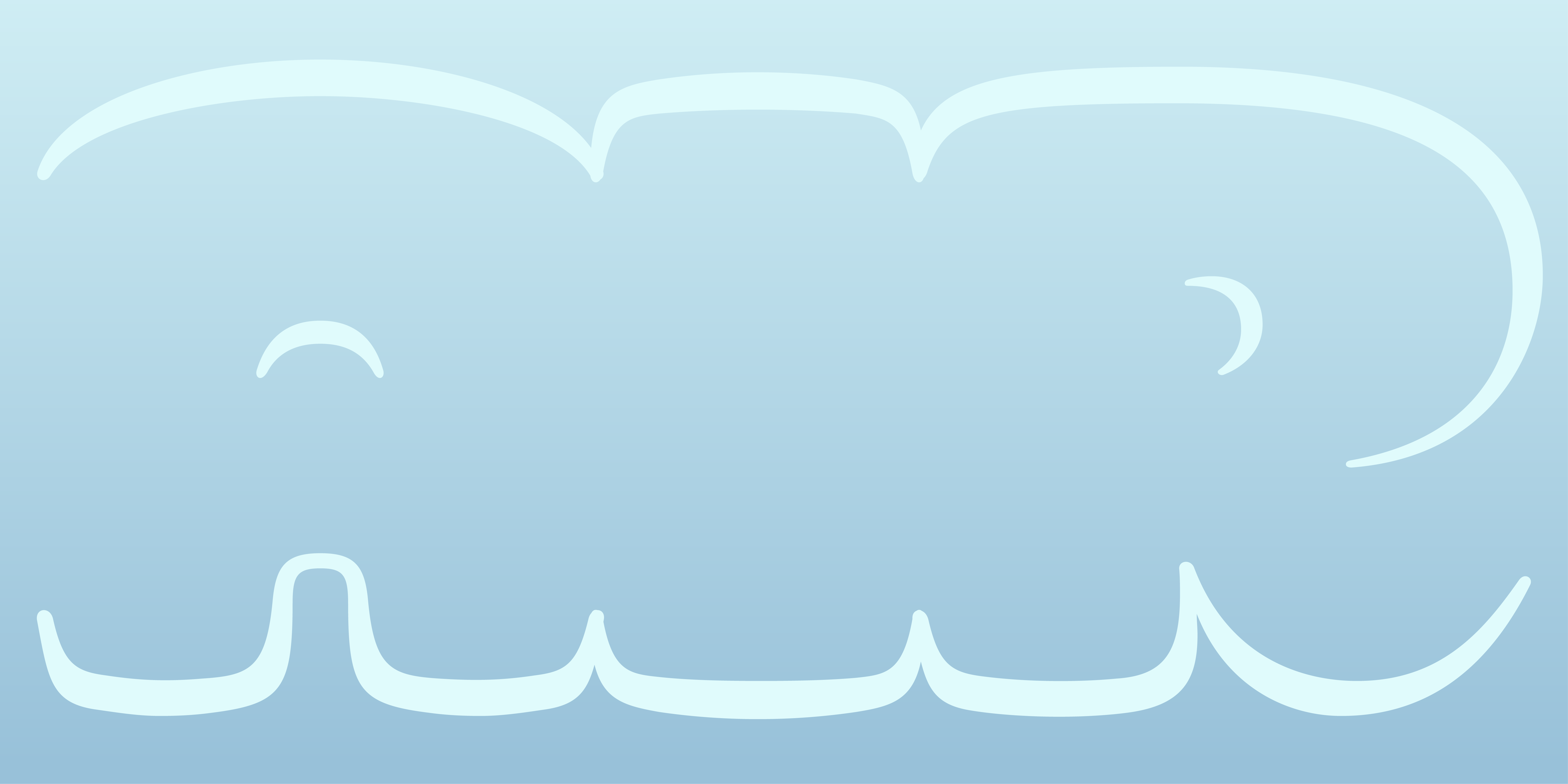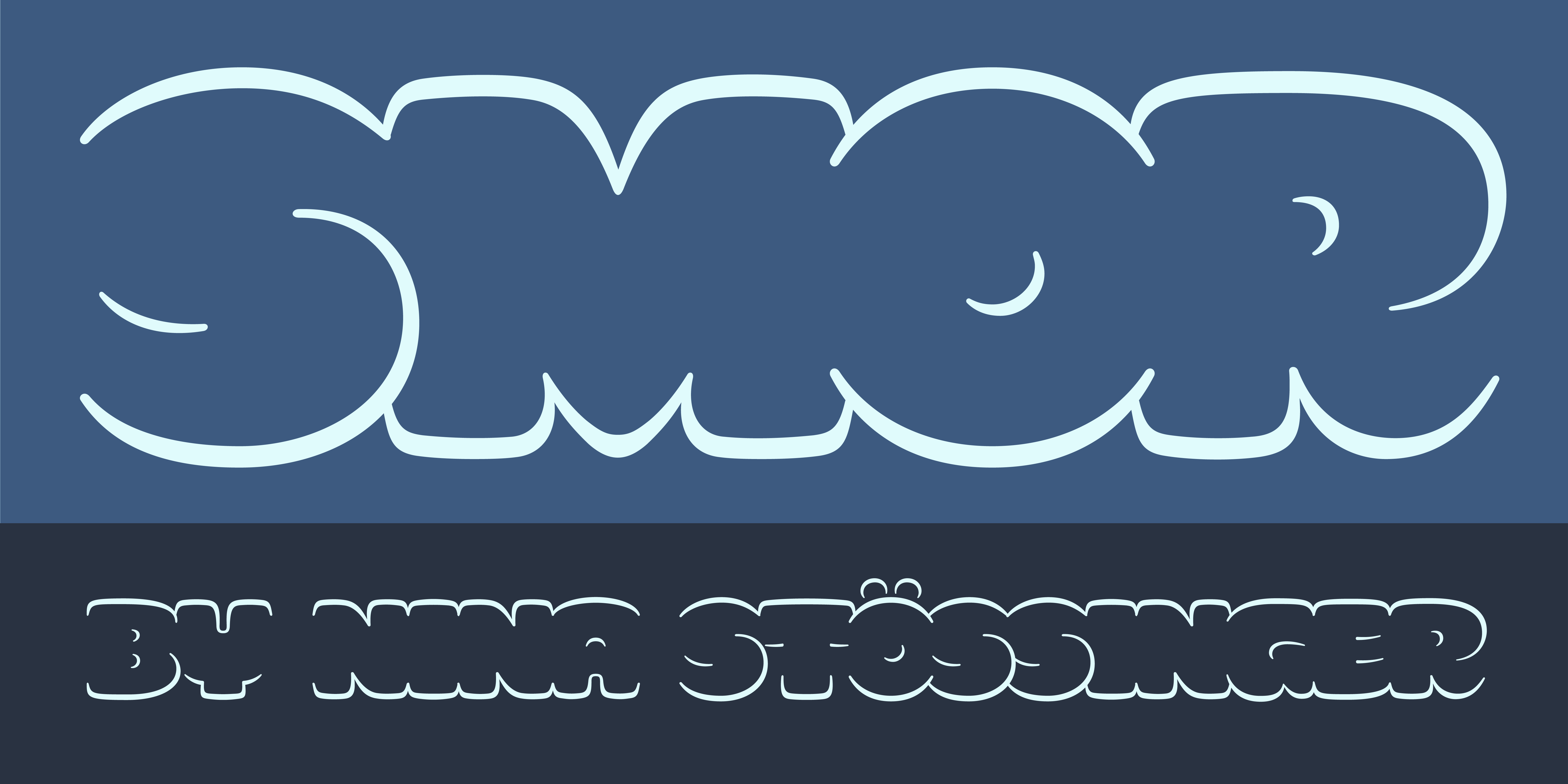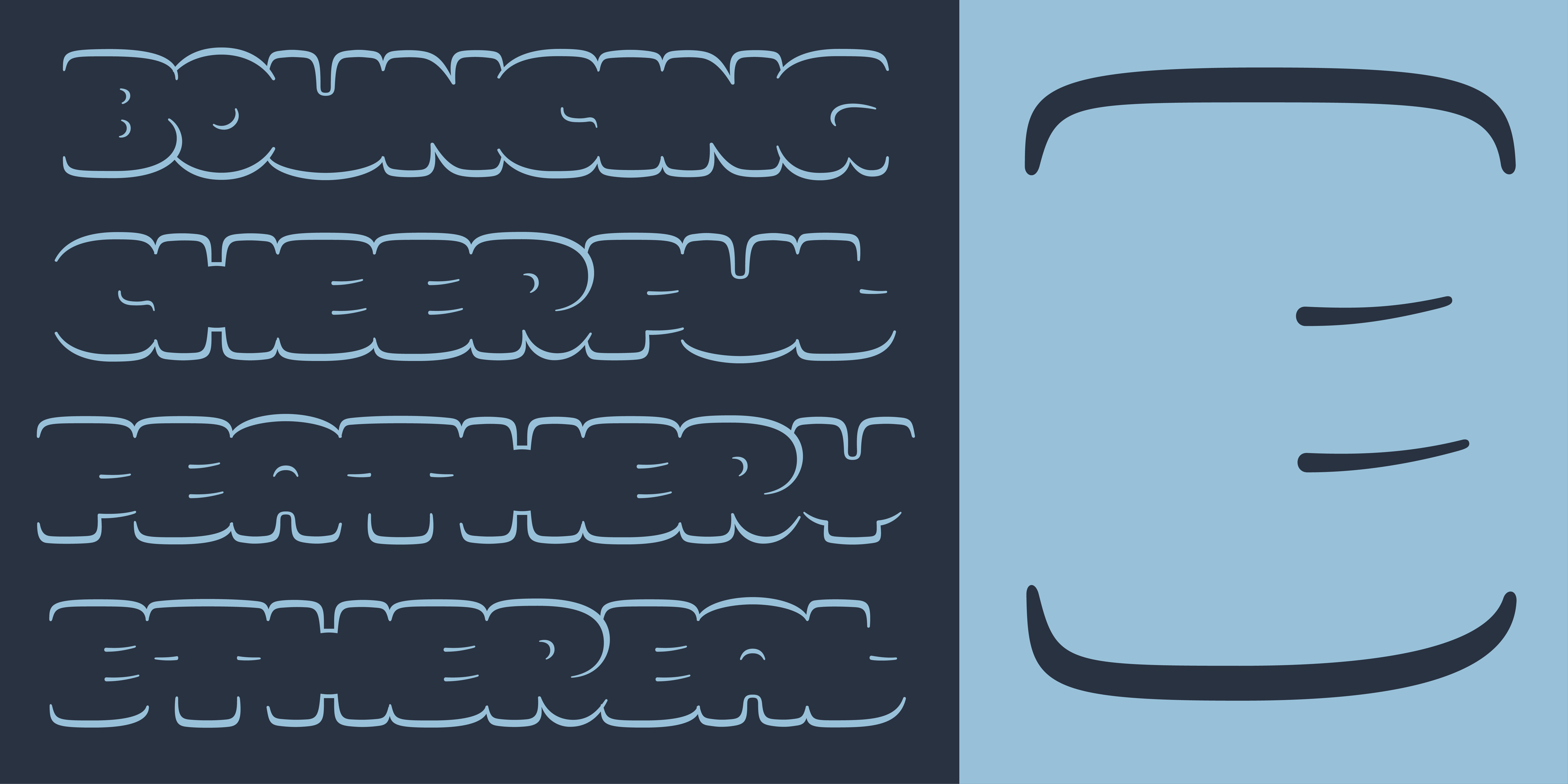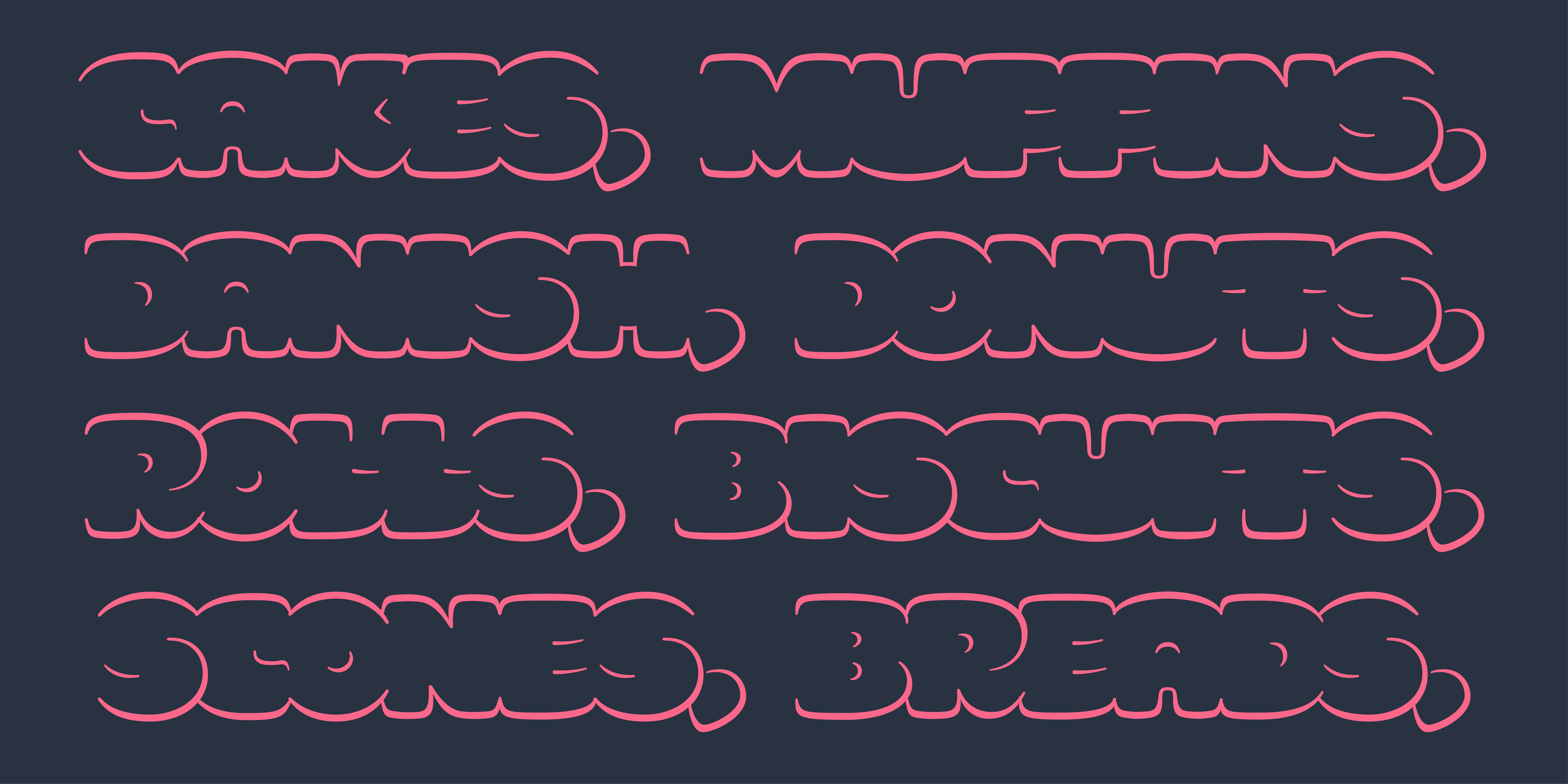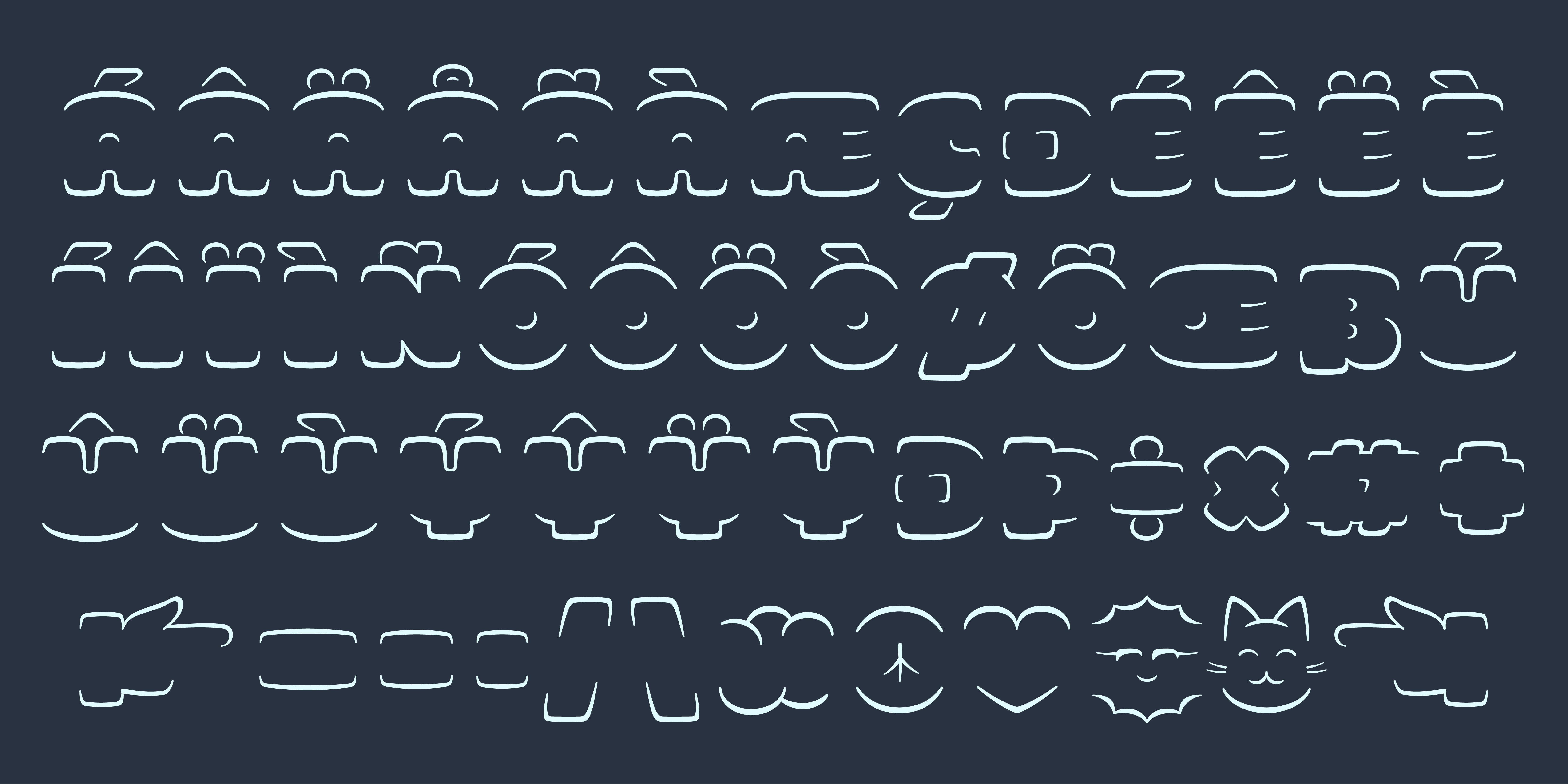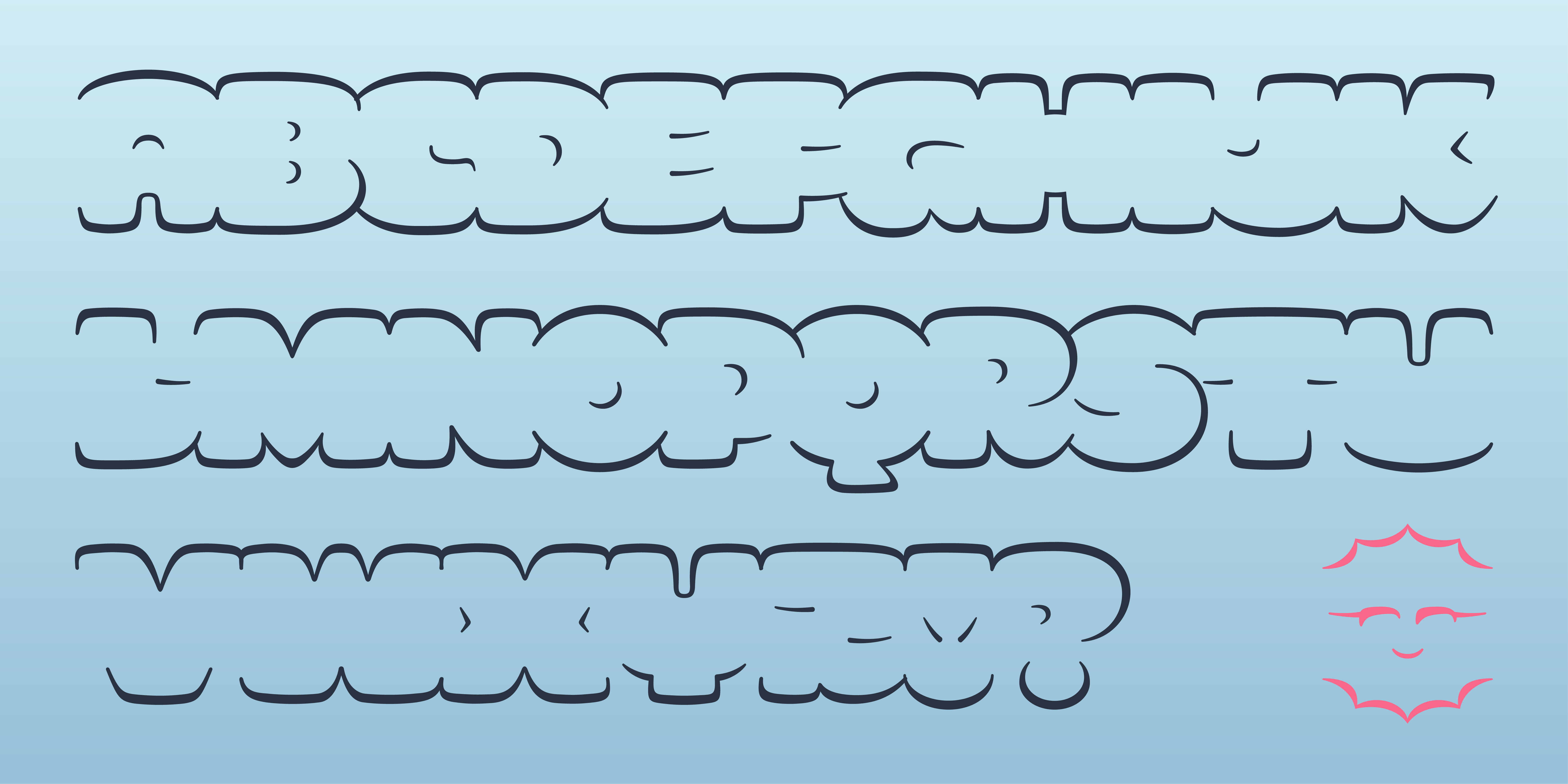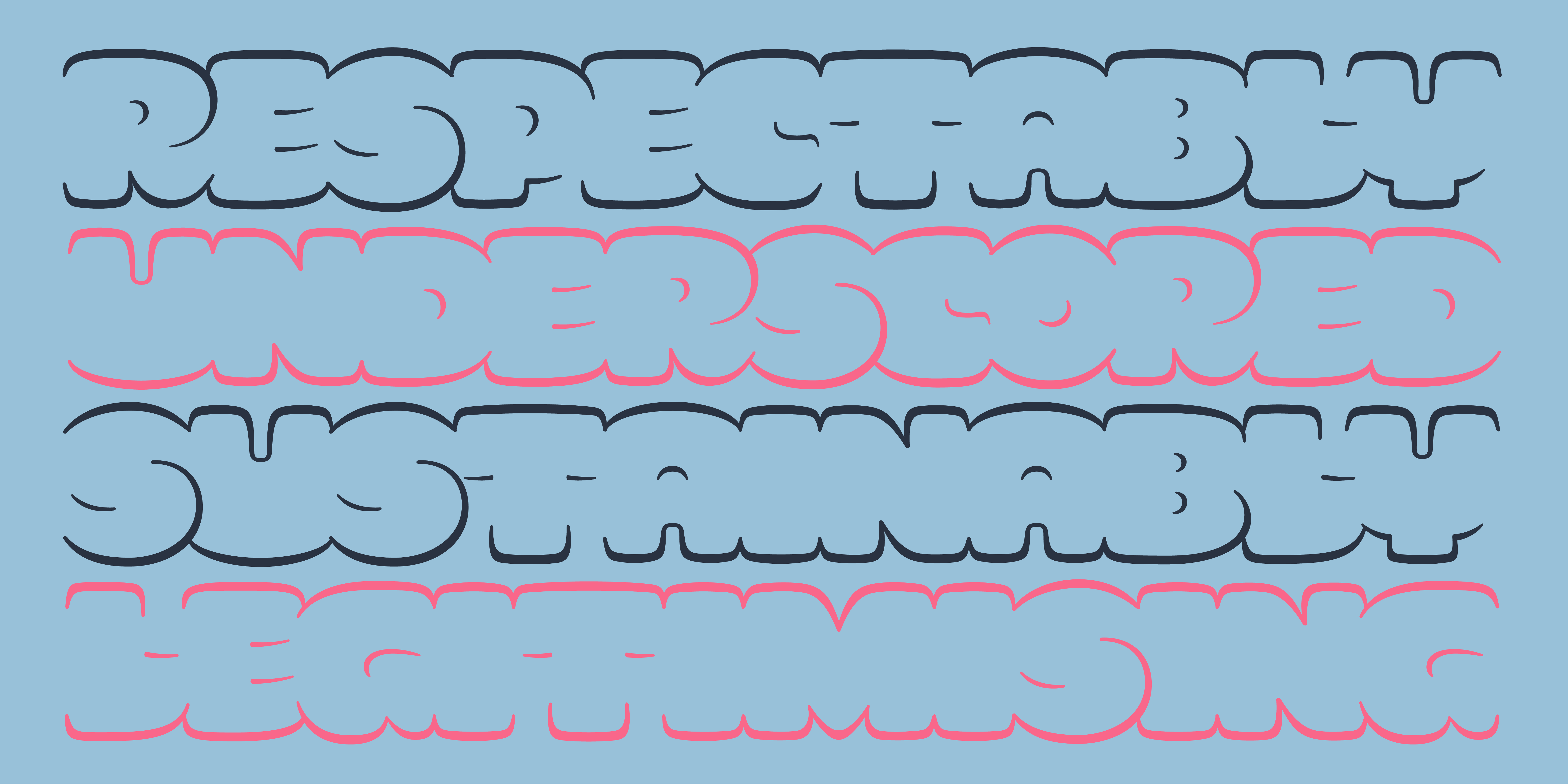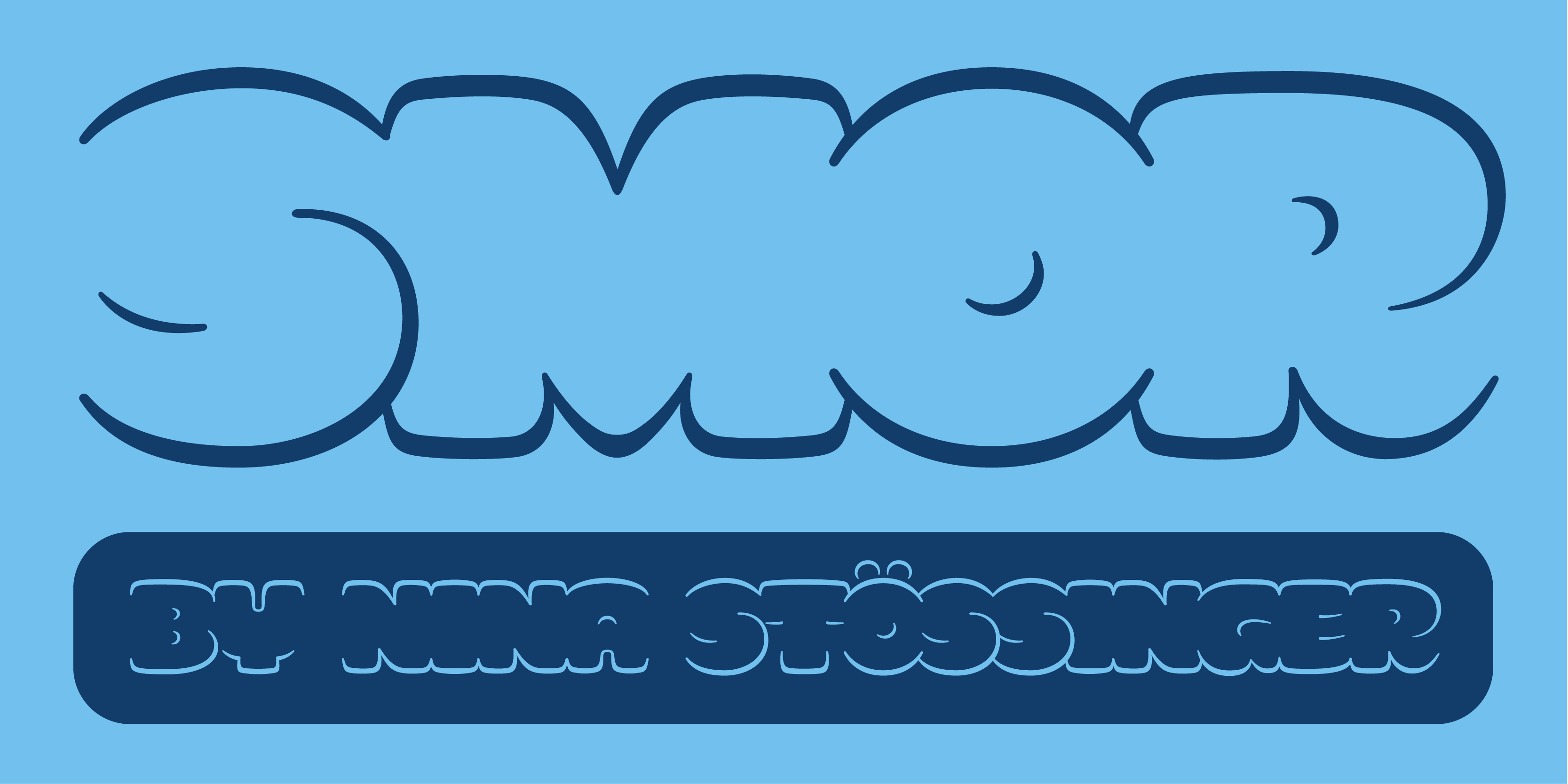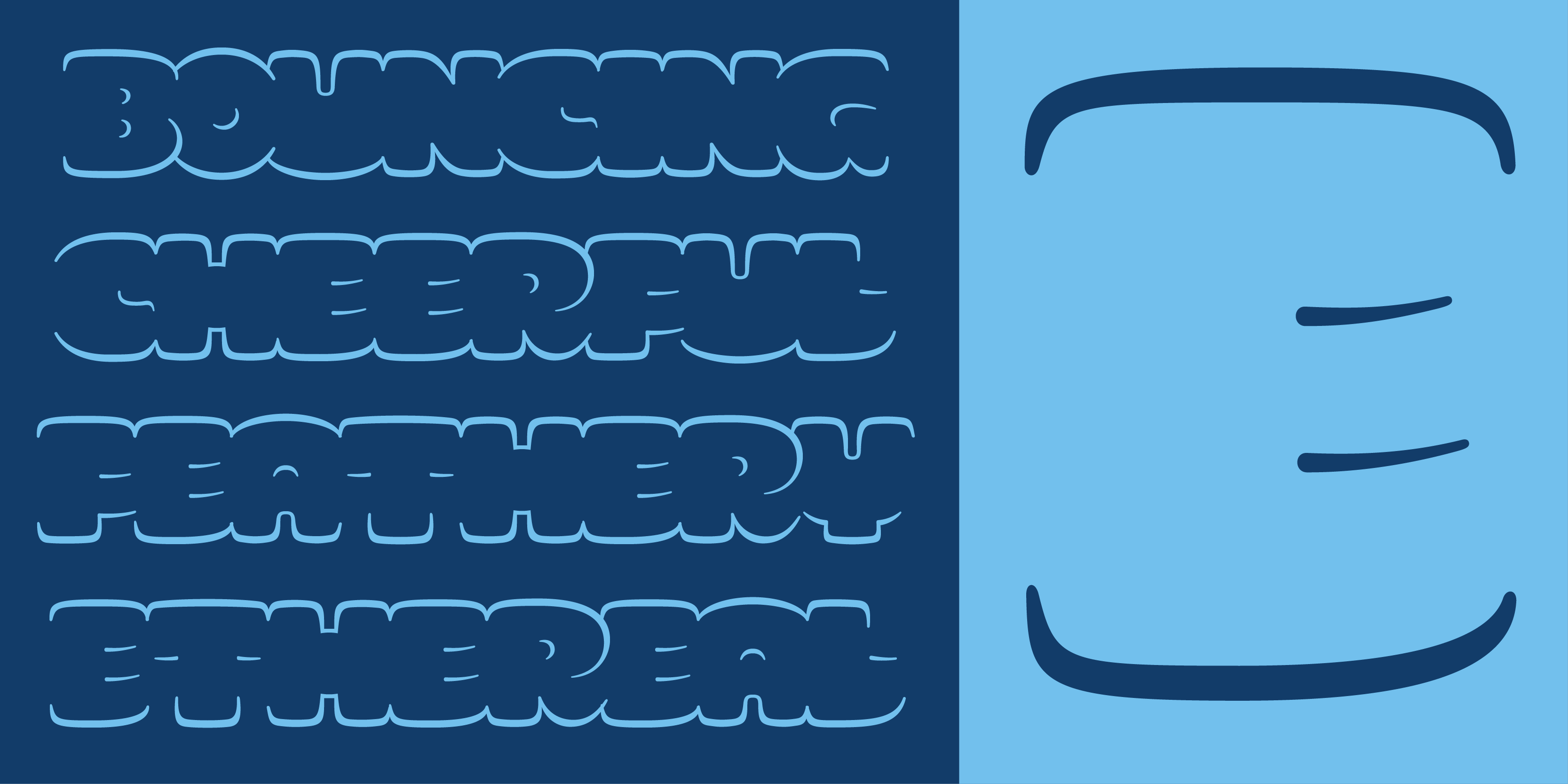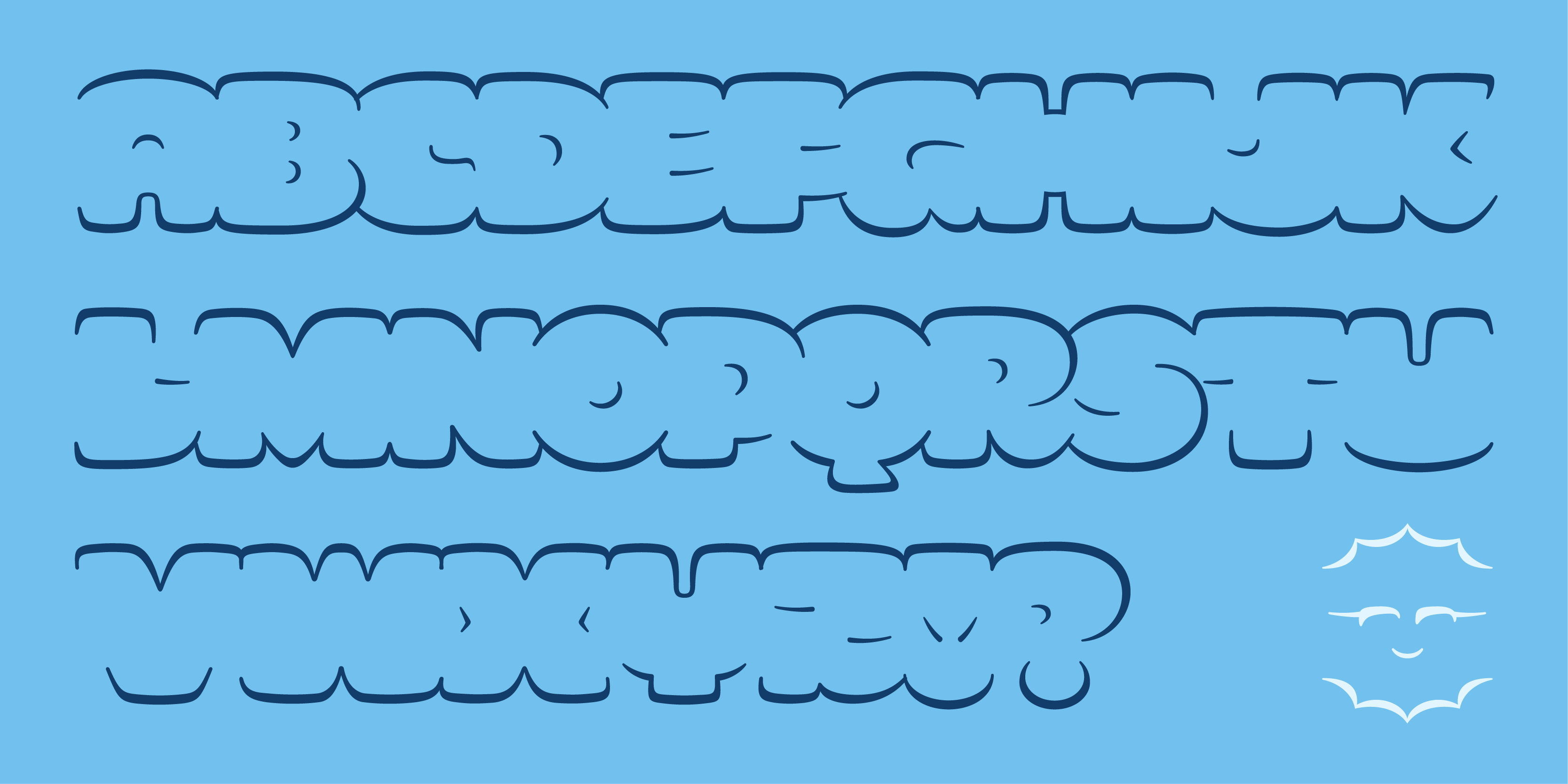
SMOR
SMOR is a cute and cartoonish outline typeface designed by Nina Stössinger that aims to connect top and bottom profiles of letters into bubbly words while omitting their side profiles almost completely. This all-caps display design is great for typesetting ultra bold letters while still feeling weightless. SMOR is inspired by graffiti throwups — their speedy, gestural shaping and the idea of defining words through their outer silhouettes, rather than internal structure, strokes, skeletons (as commonly suggested by the calligraphic legacy in type design)… or even separated letters. Nina came up with first sketches for SMOR in Kel Troughton and James Plattner’s “Graffiti Concepts for Type People” course, and continued to refine and expand the design over the following months. Use for adorable & fluffy things, and set large.